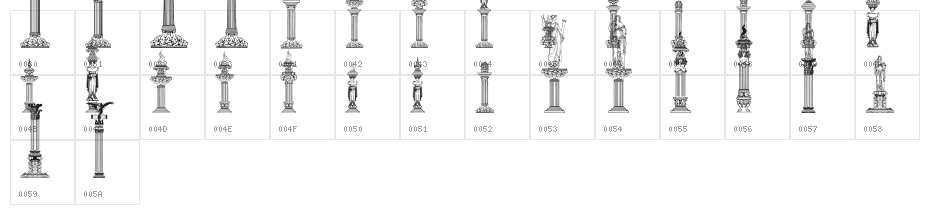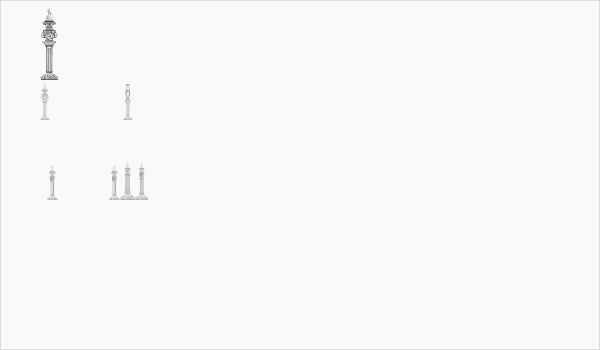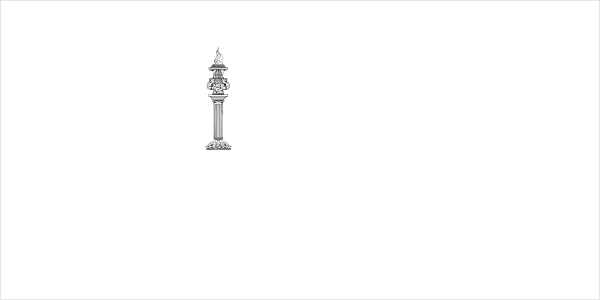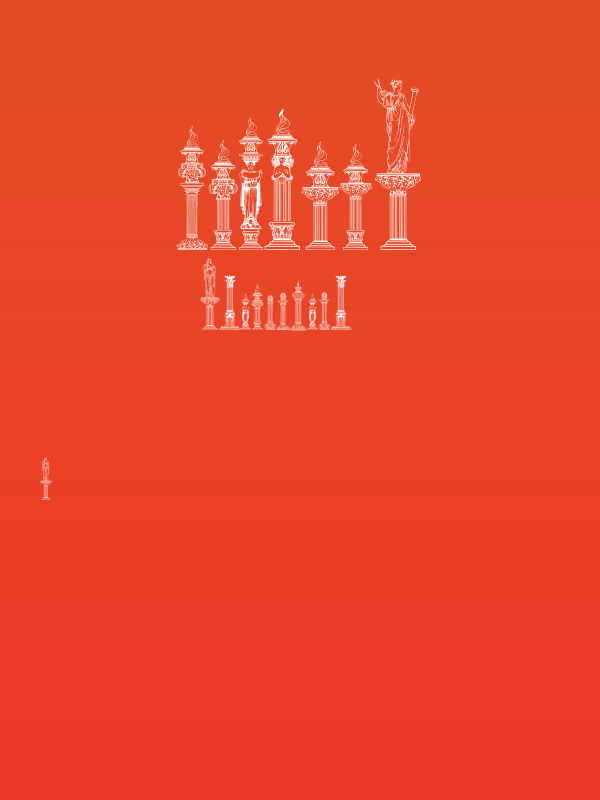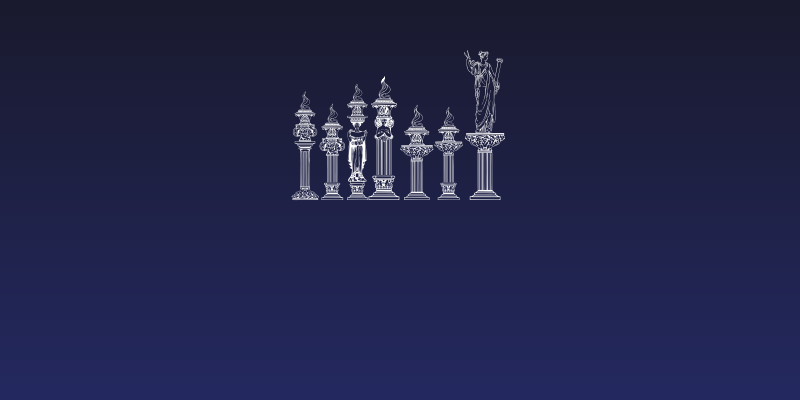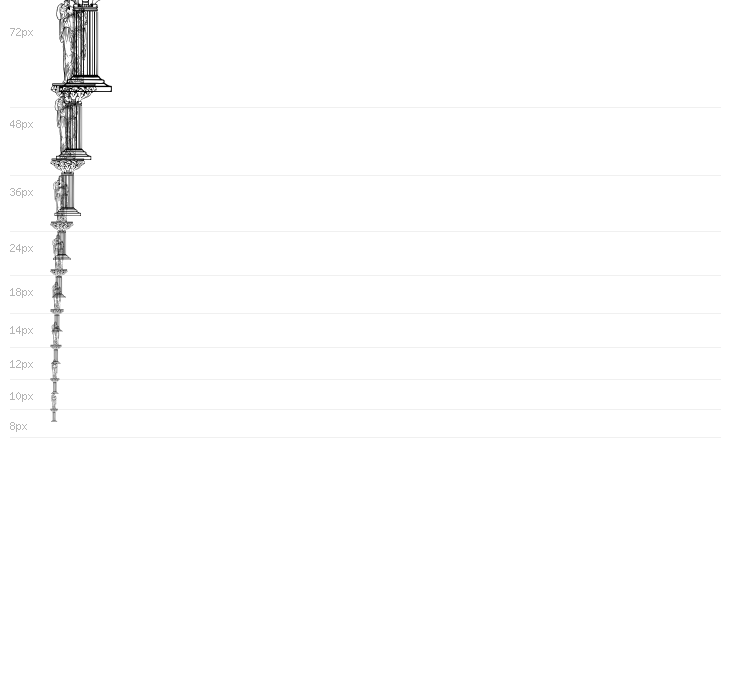
Columns Font
Columns Description
Highly detailed, ornate illustrations of classical columns with intricate capitals and bases, reminiscent of ancient Greek and Roman architecture. Each glyph is unique, featuring decorative flourishes, statues, and elaborate engravings.
| Overall Style | Vintage, Decorative |
| Use Case | Logos, Posters, Decorative elements |
| Proposed Projects | Historical posters, architectural presentations, educational materials, decorative book covers, themed invitations. |